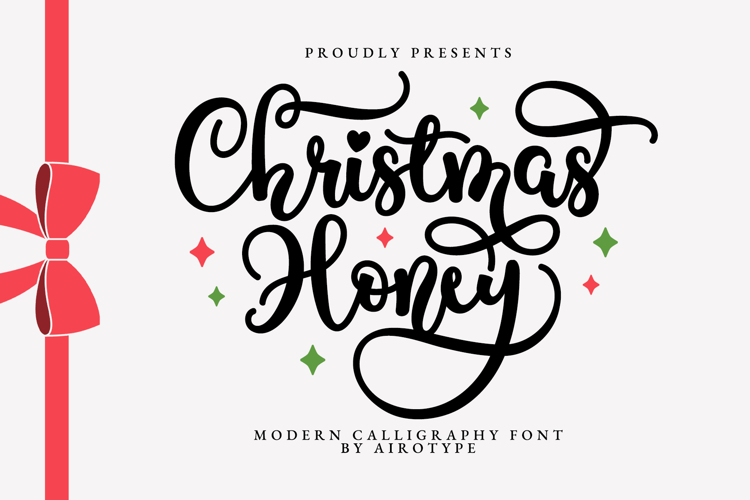
Christmas Honey - Modern Calligraphy Script Font with Swash
Christmas Honey is modern and festive calligraphy font. This font represents joyful, happiness, and excitement.
This font is beautiful for design that needs modern and fancy handwritten touch, such as wedding design, christmas, invitation, birthday, t-shirt design, crafting, sticker, sublimation, and others.
- Uppercase & Lowercase (included lowercase extra alternates)
- Numeral and Punctuation
- Most Multilingual Accent